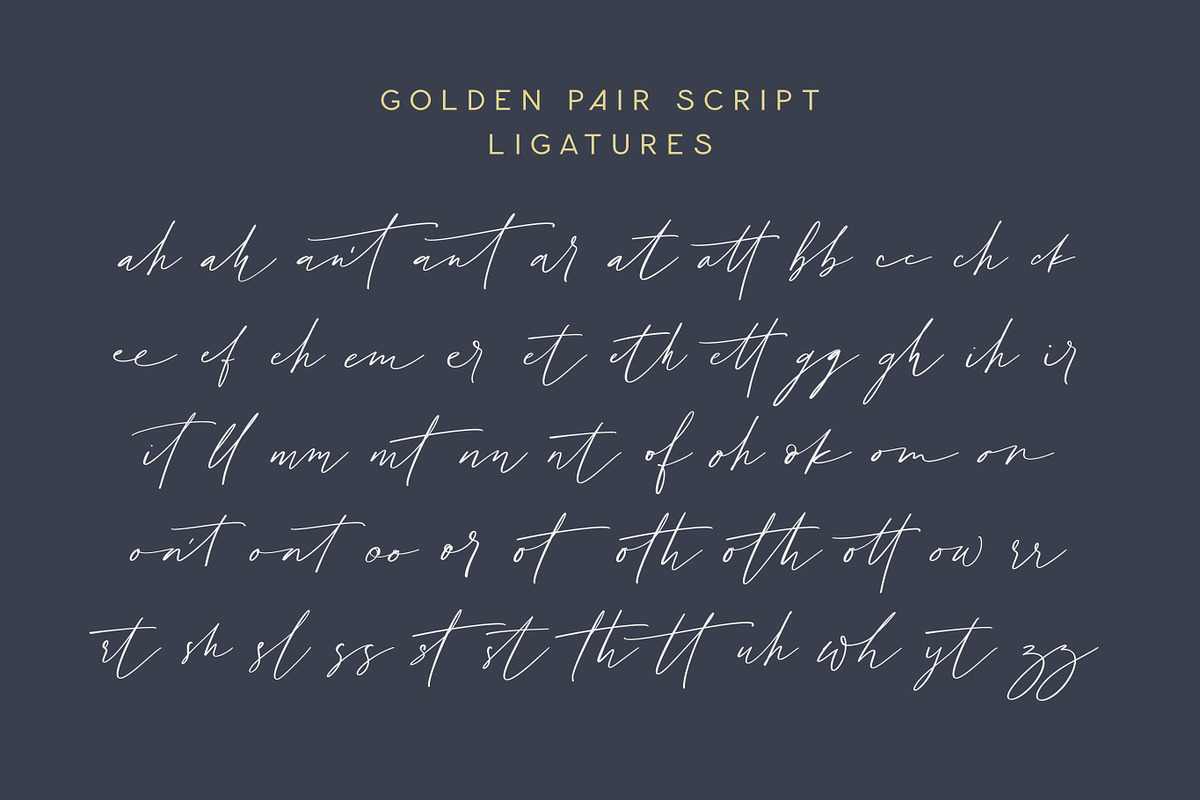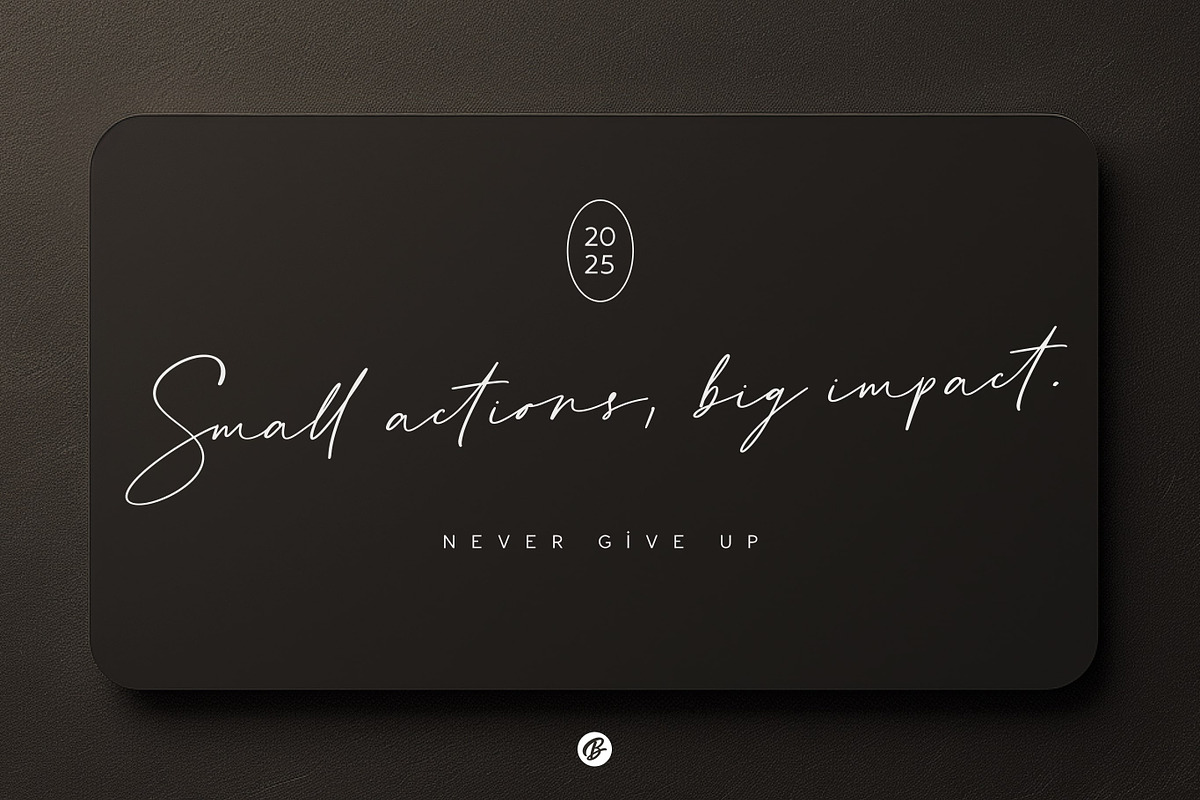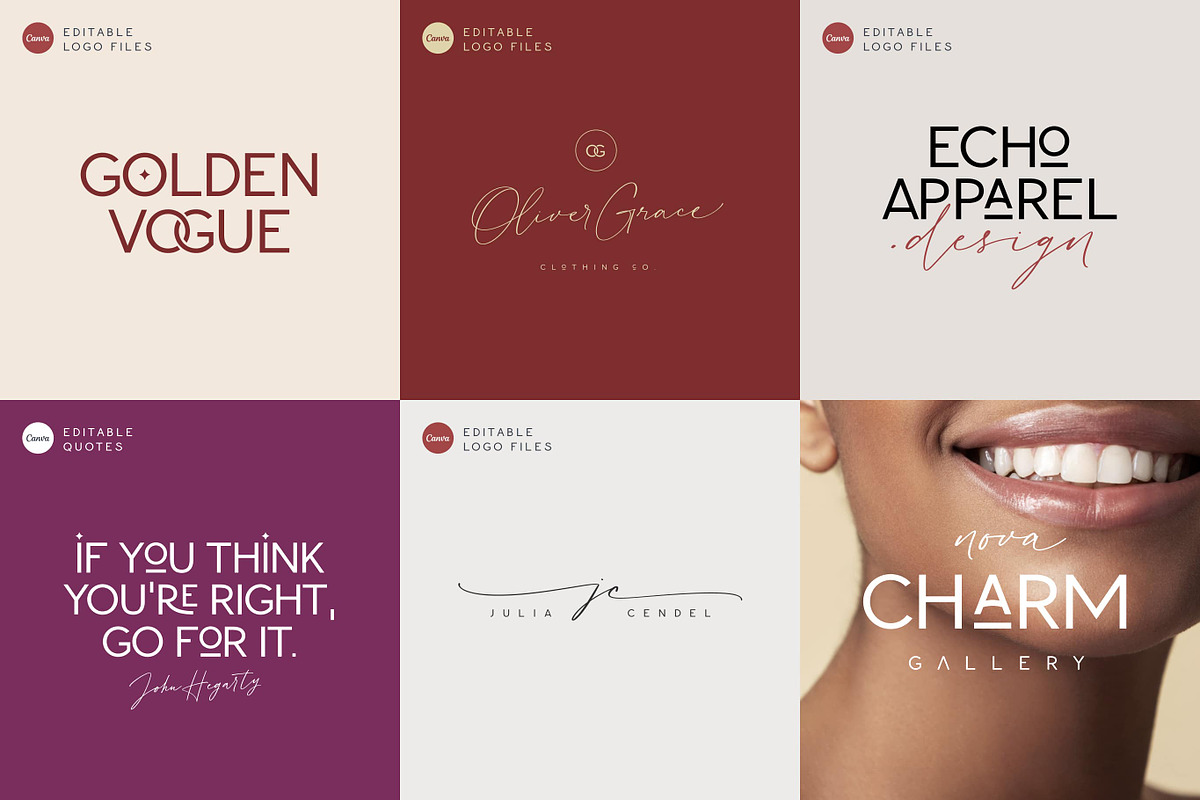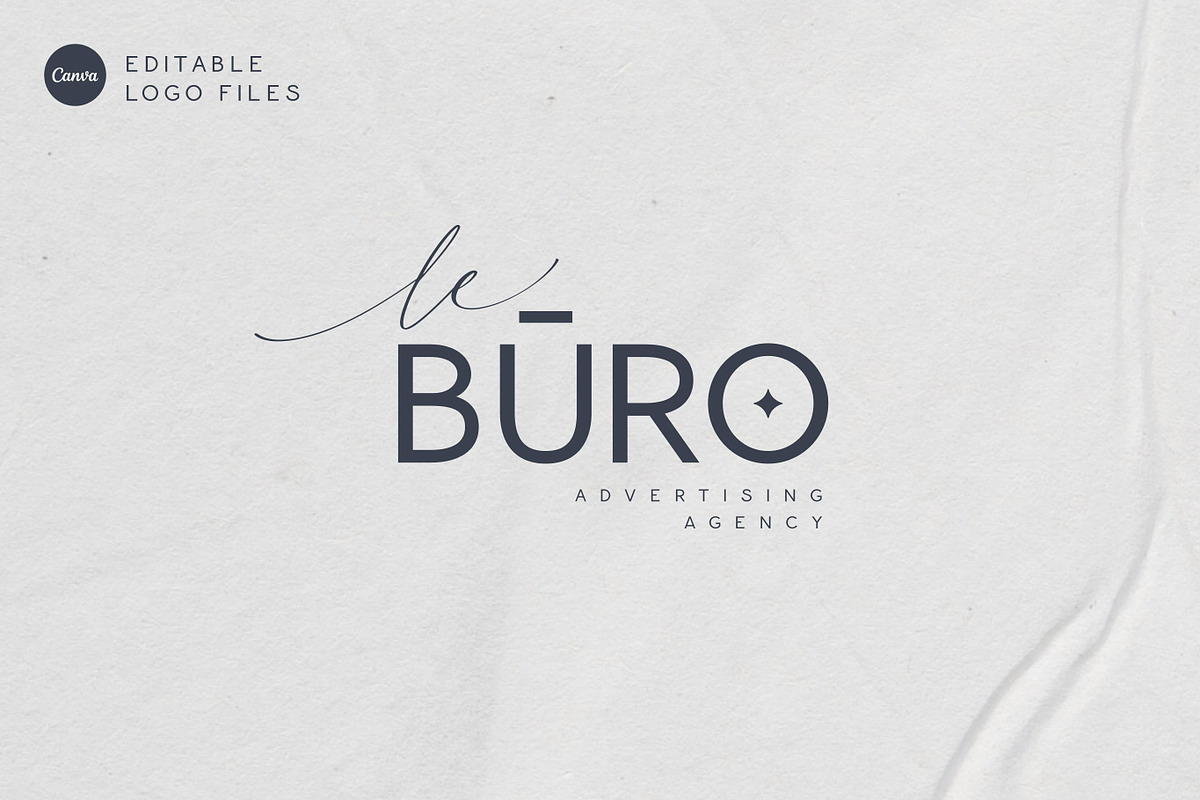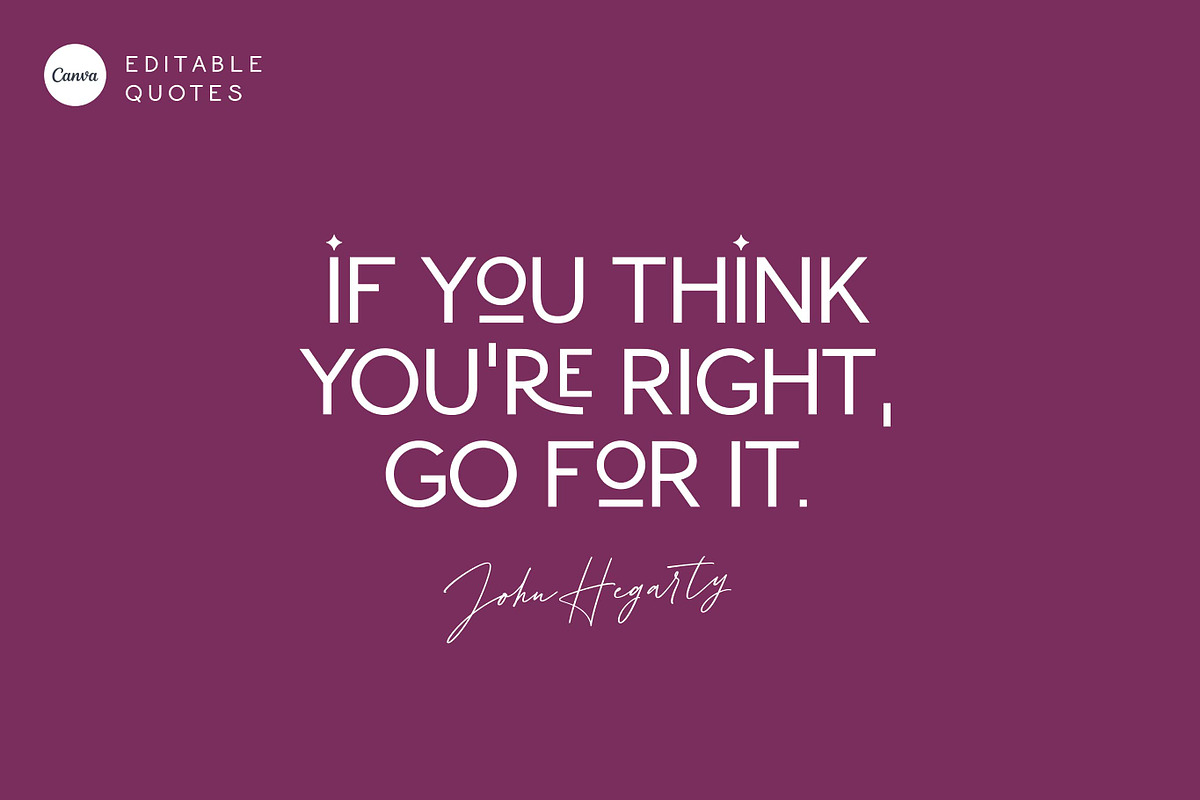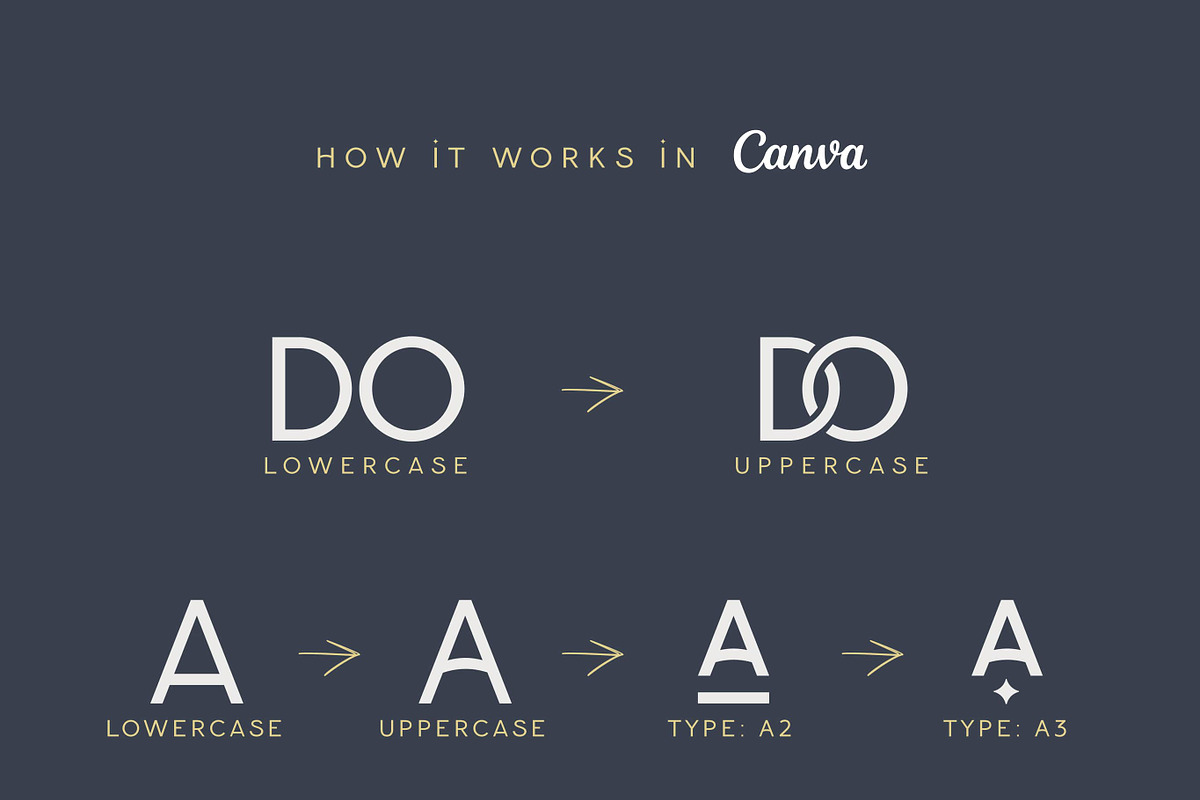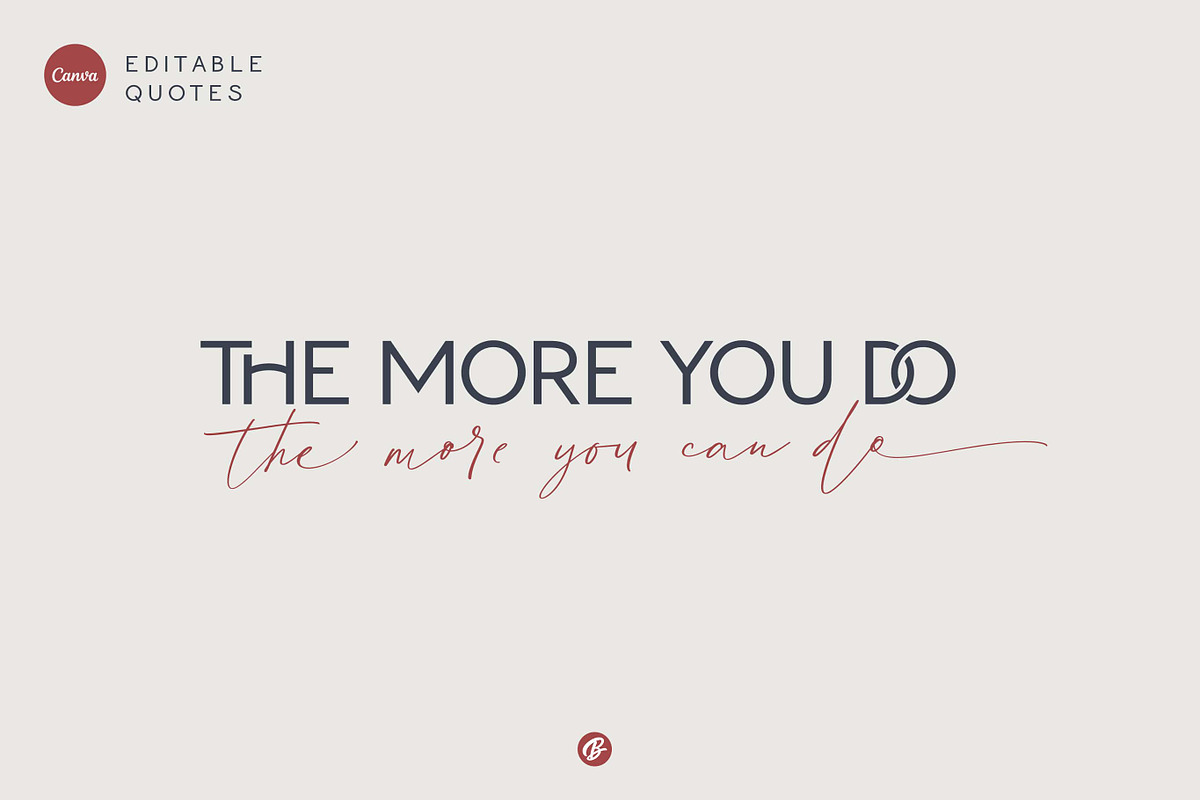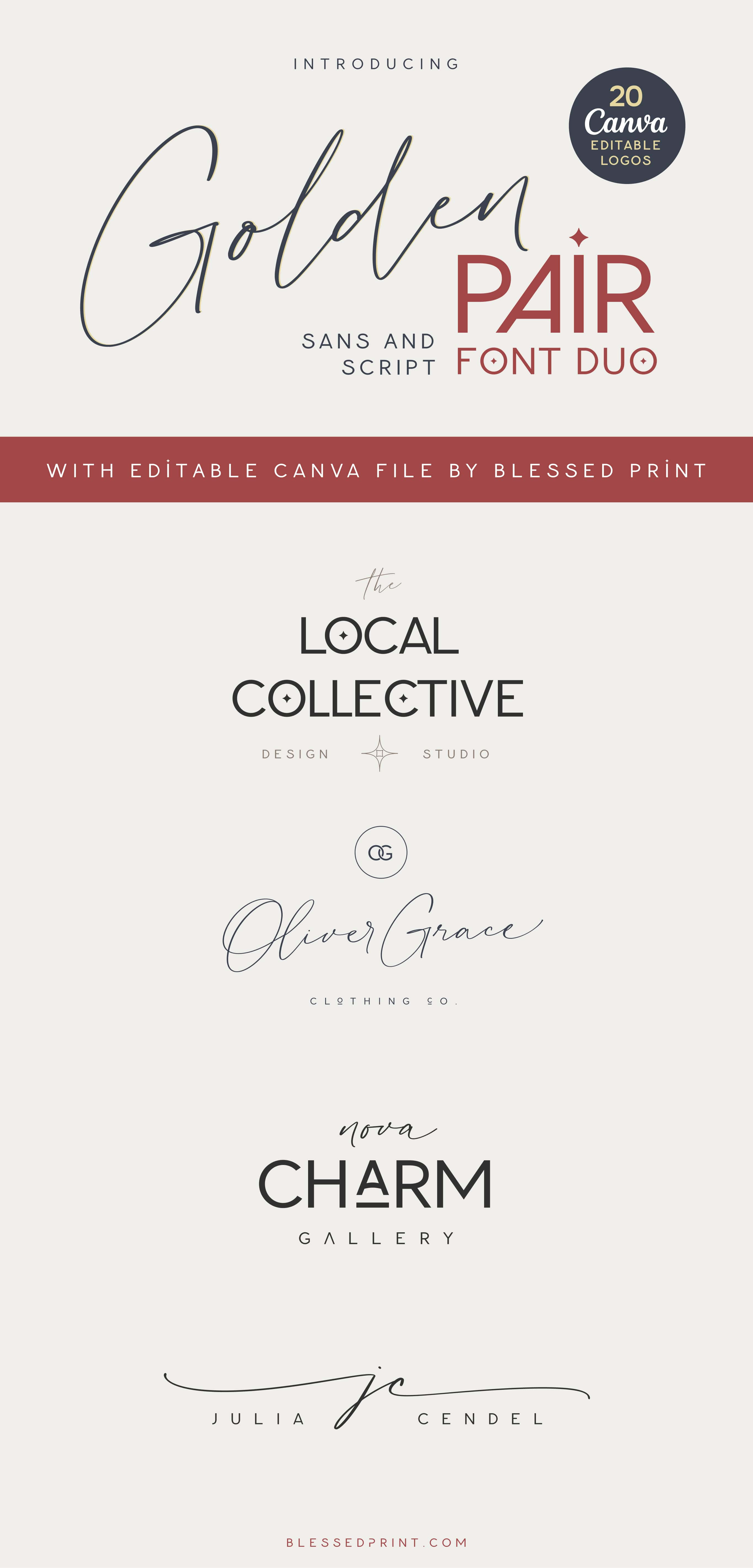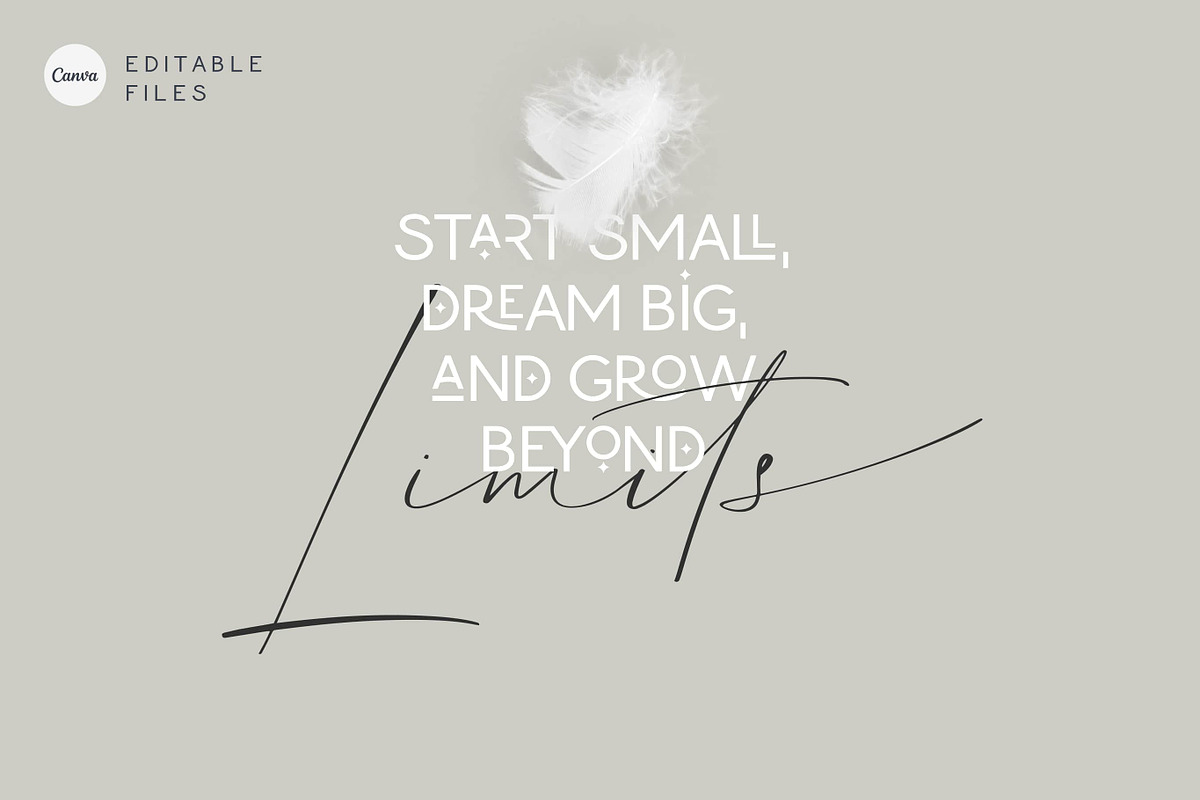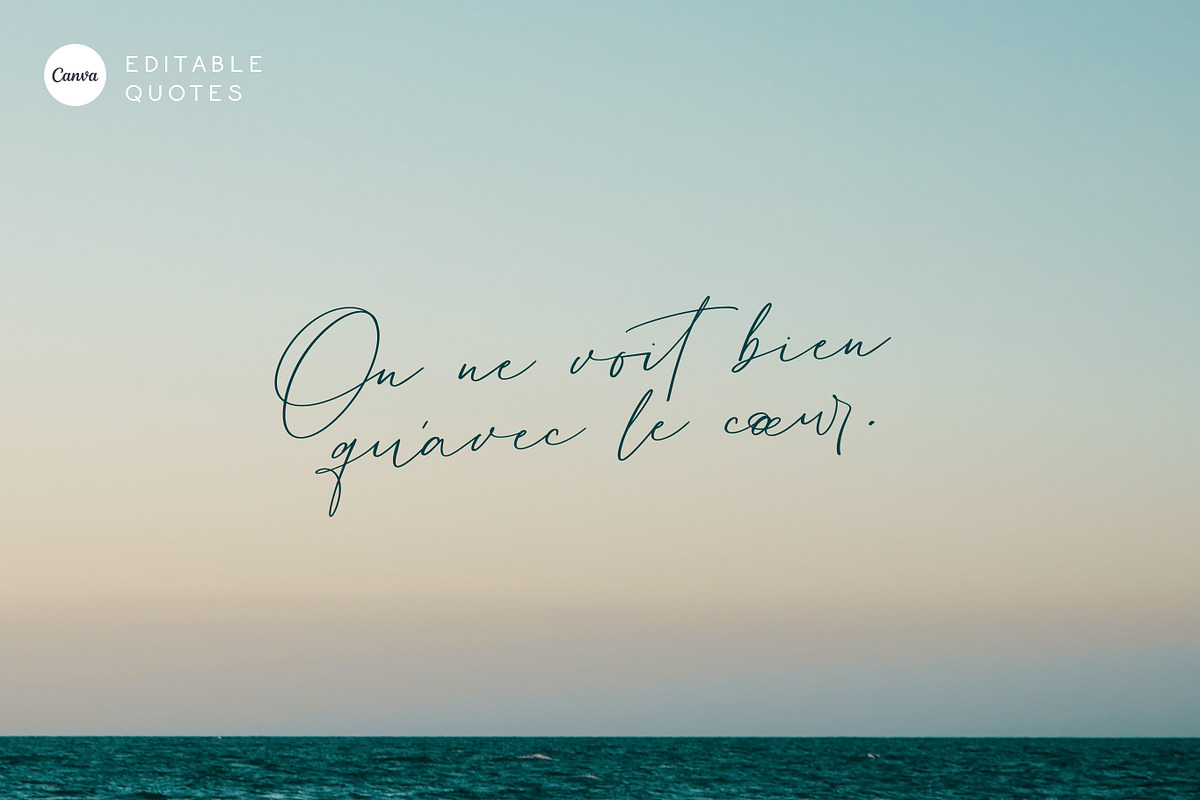
Golden Pair - Font Duo for Canva
Golden Pair is a sophisticated font duo that perfectly blends a modern script with a ligature reach sans serif. Designed for modern creatives, this font offers both versatility and timeless elegance. Whether you're working on luxury branding, stationary, web design or stylish packaging, Golden Pair provides the perfect balance of charm and professionalism.
- Golden Pair Sans Ligatures: This sans font is always displayed in uppercase, even when typing in lowercase. If you type in all uppercase, ligatures will activate automatically.
- Golden Pair Sans Alternates: Add a number after a letter to activate stylistic alternates (e.g., `A1, A2, A3`), or use `+` after `O, D, C` to insert a star.
- Golden Pair Script Swashes: Add a swash at the end of a word by typing `]`, like `and]` or `and]]]`.
Script Styles: Thin, Ex1, Ex2 strokes
406 + 823 Glyphs: Including extensive stylistic alternates, ligatures, and contextual variants
Supports a wide range of European languages, including Czech, Danish, Dutch, English, French, German, Italian, Latvian, Lithuanian, Norwegian, Polish, Portuguese, Romanian, Slovak, Spanish, Swedish, Turkish, and more.